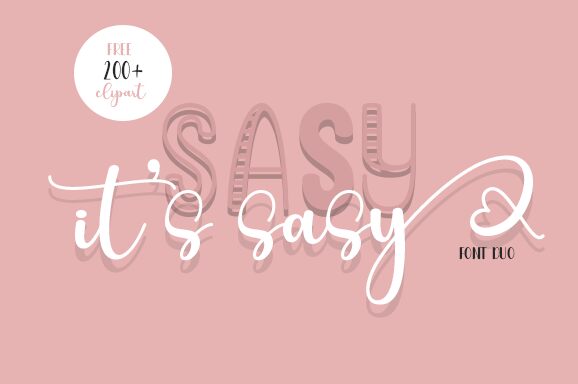
Its Sasy Display
Introducing Its Sasy Display, a condensed, light display font crafted by designer Nopianti. Its minimalistic style and smooth curves make it the perfect choice for crafting logos and titles for eye-catching projects like advertisement posters, fashion magazines, and art projects. Its Sasy Display is also ideal for creating modern and stylish message boards with its dynamic font type.